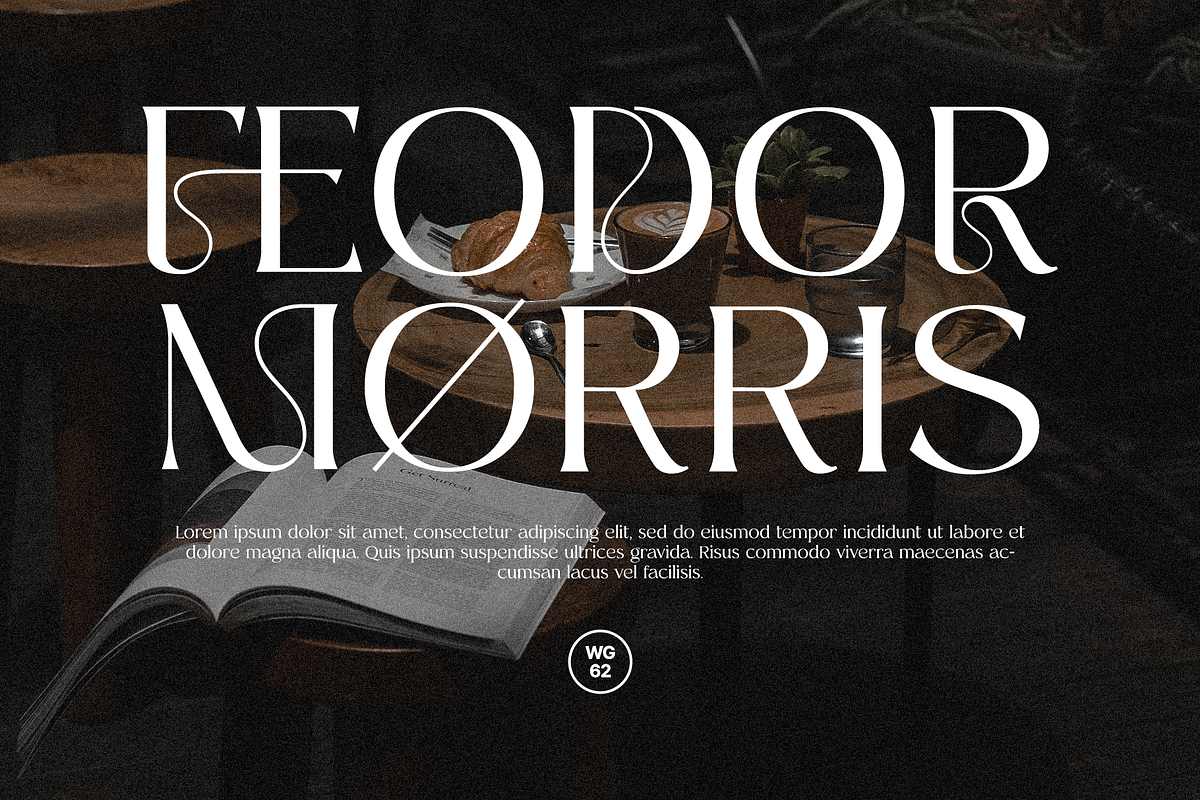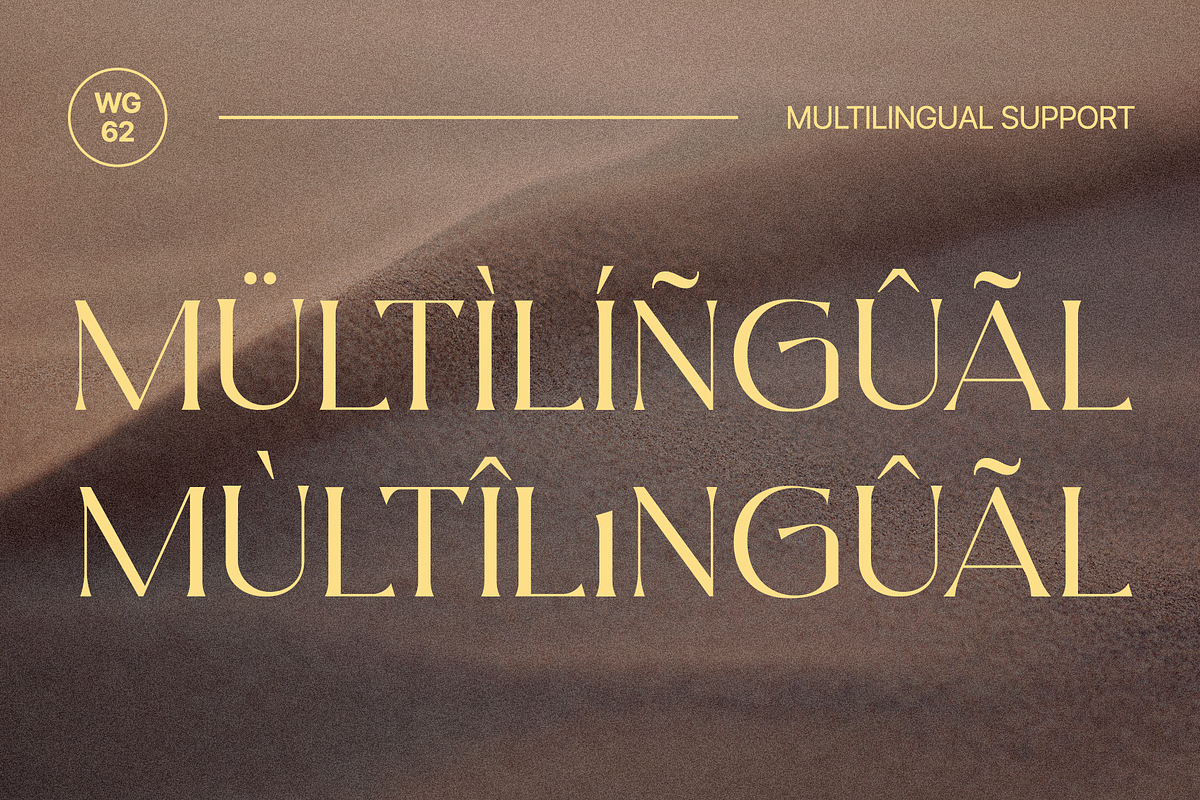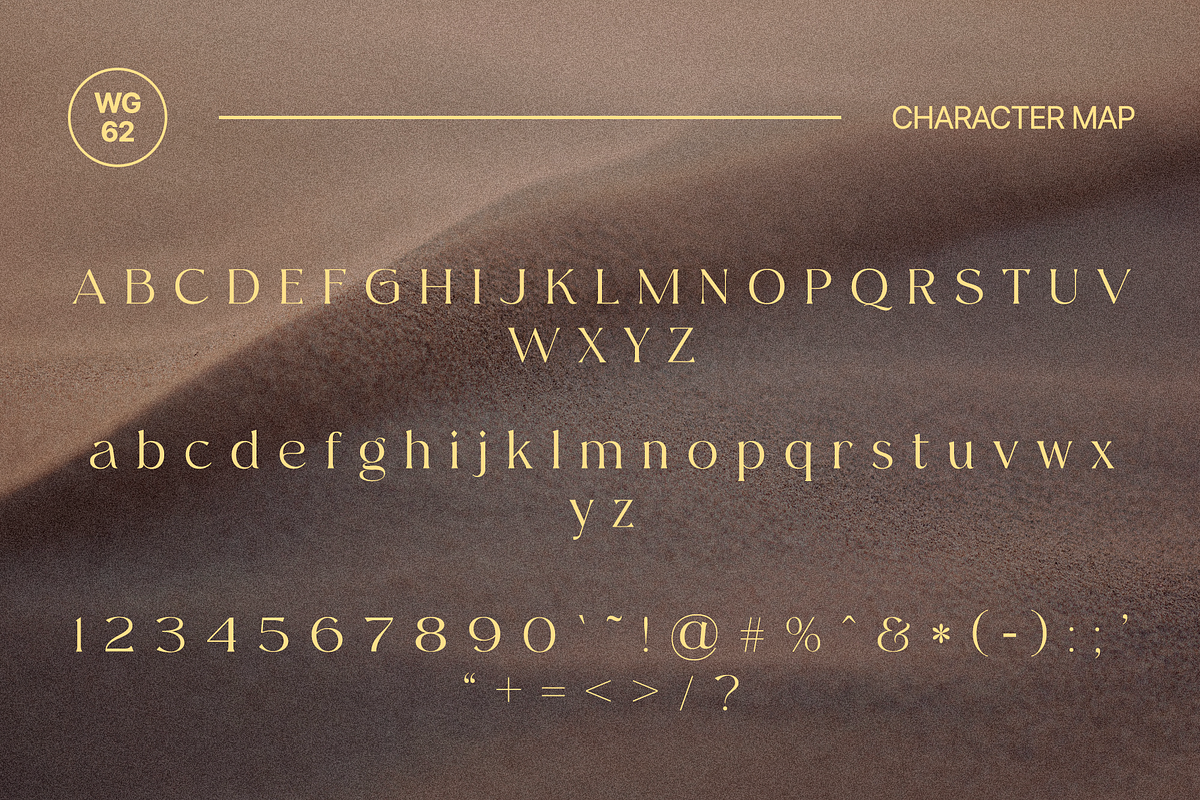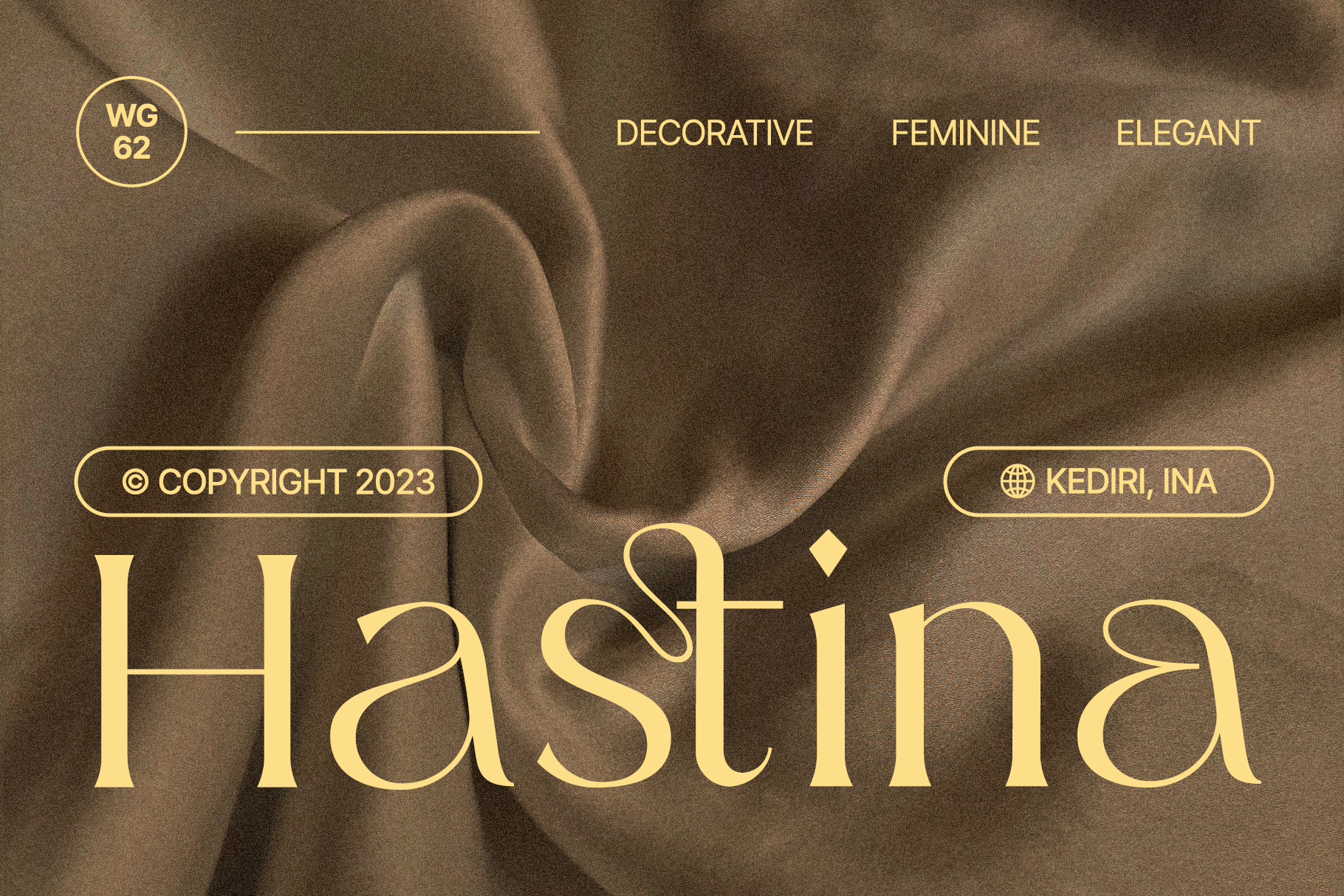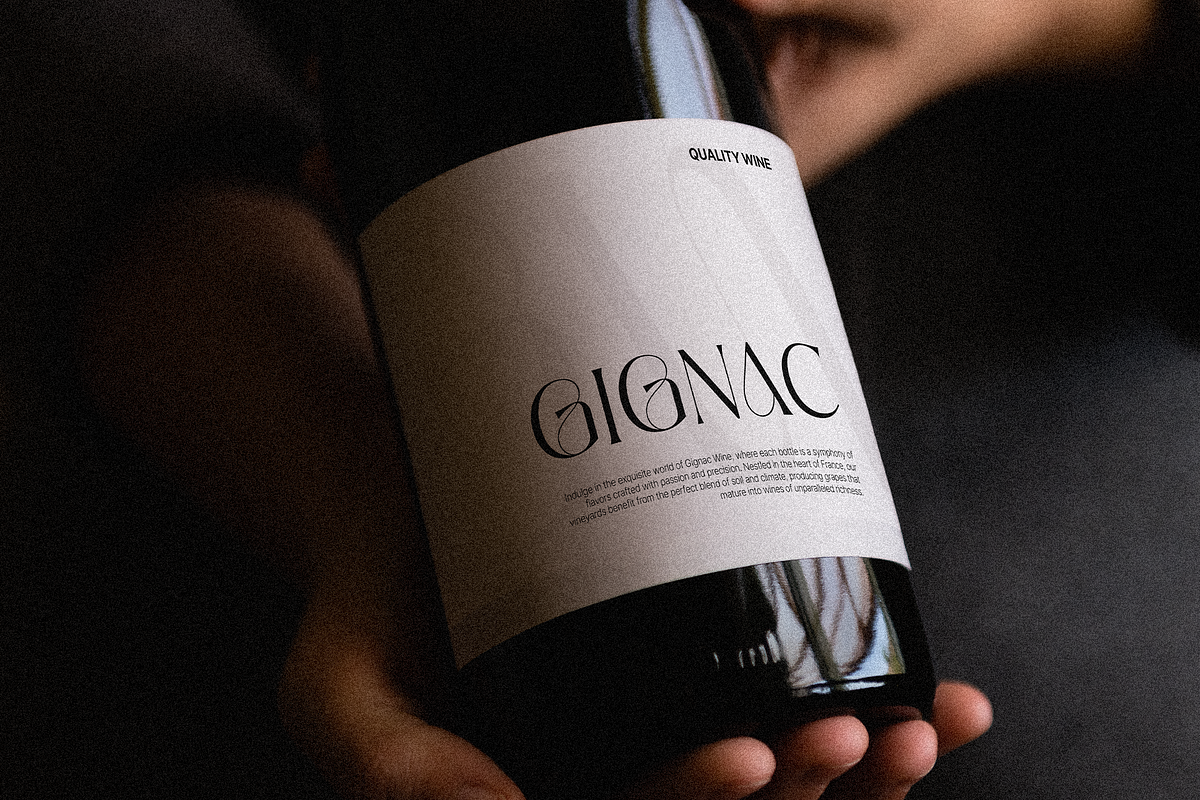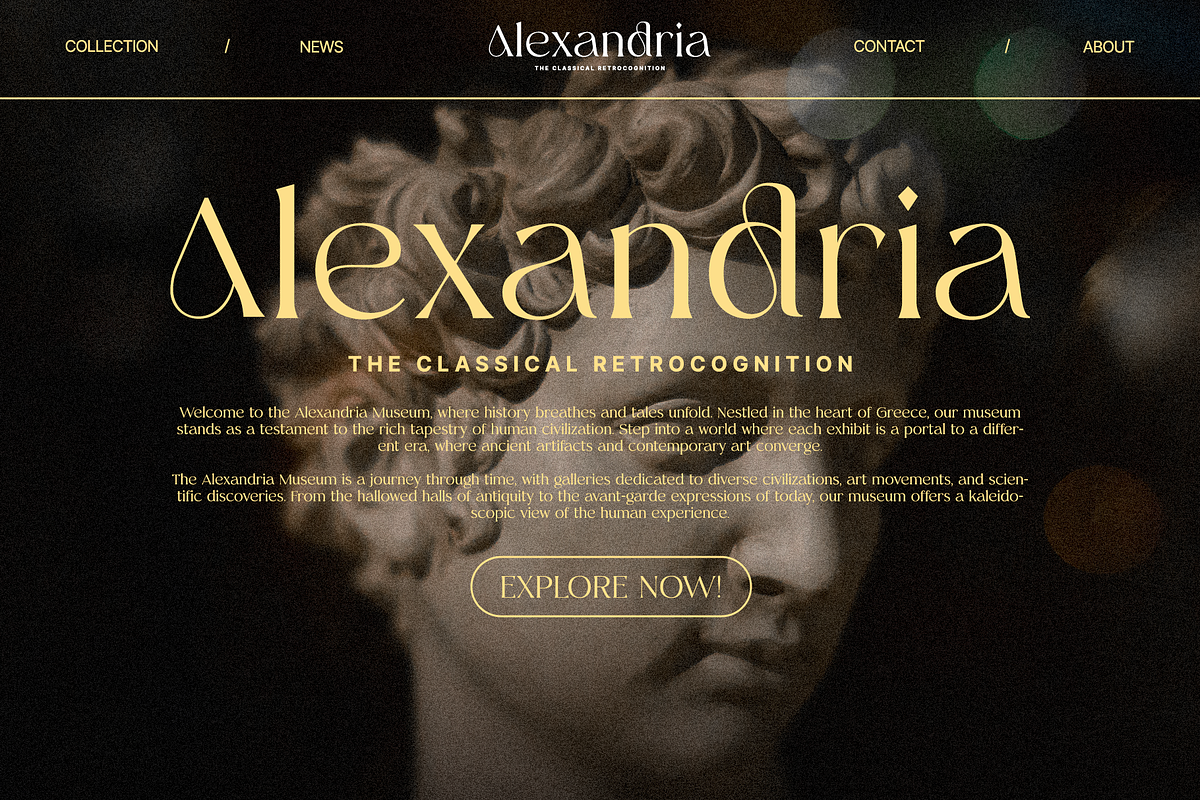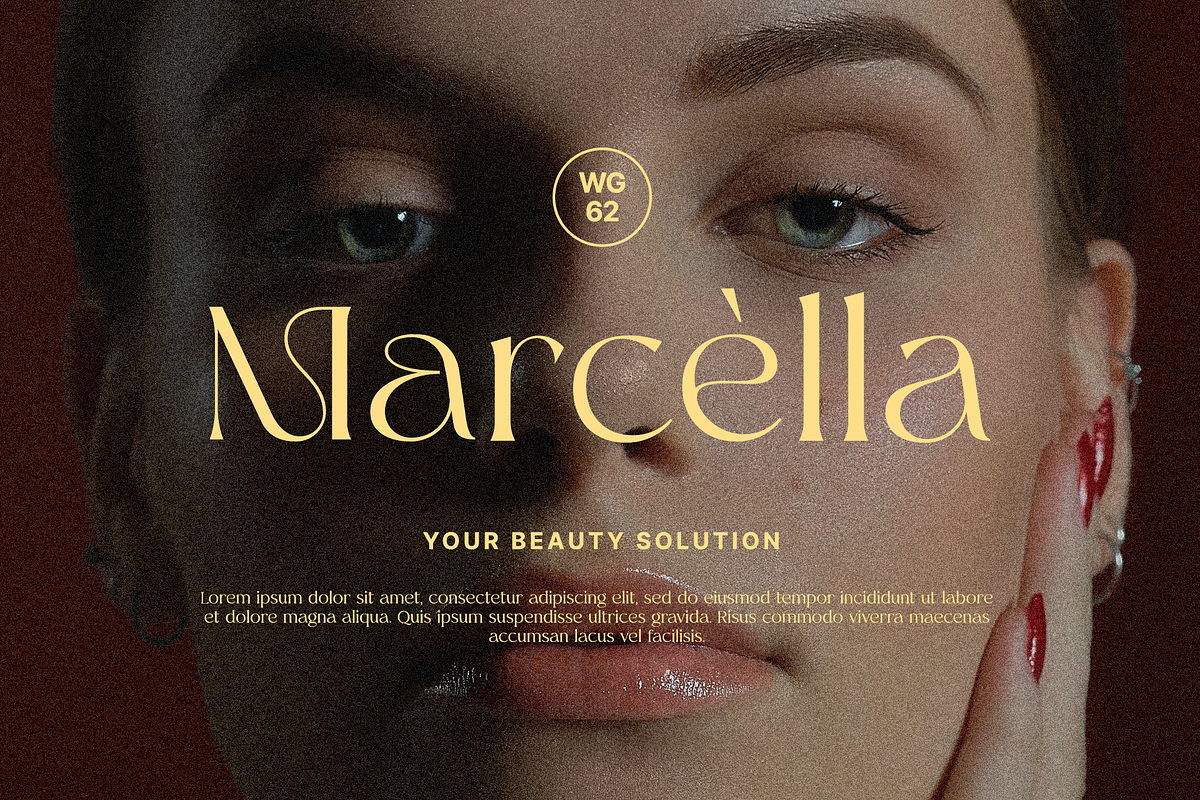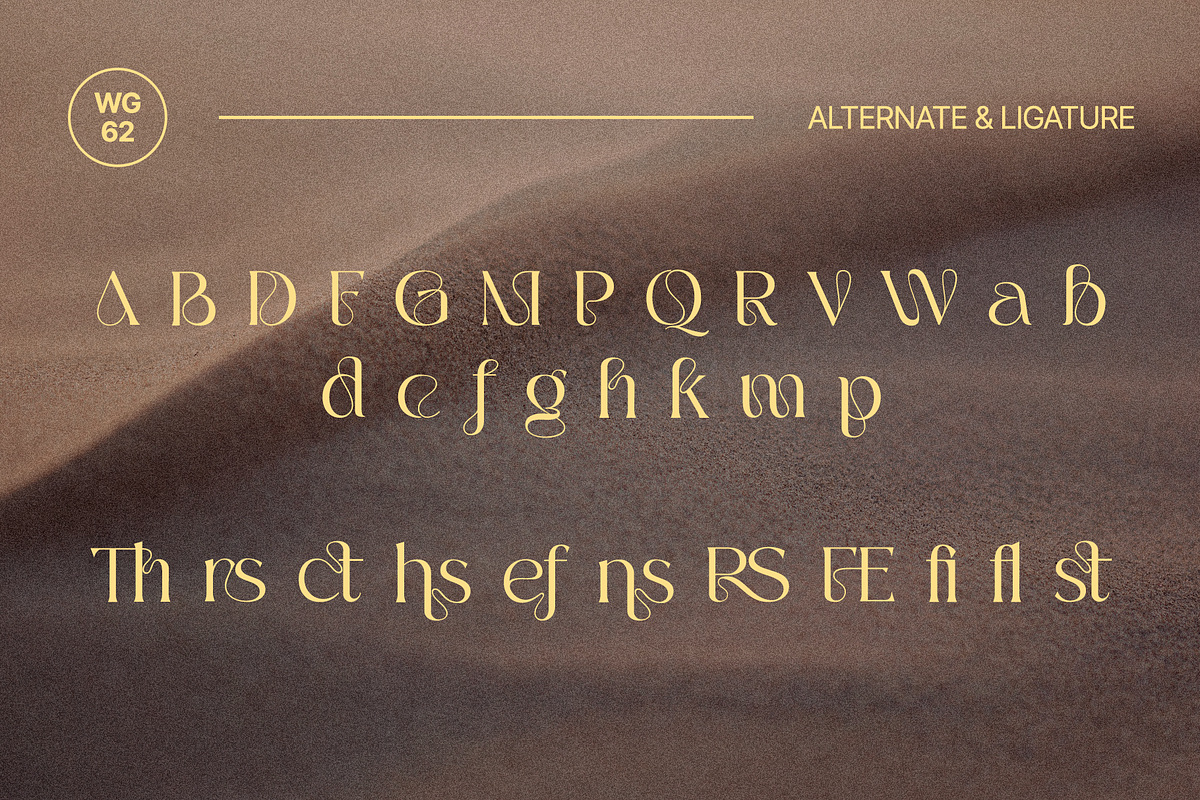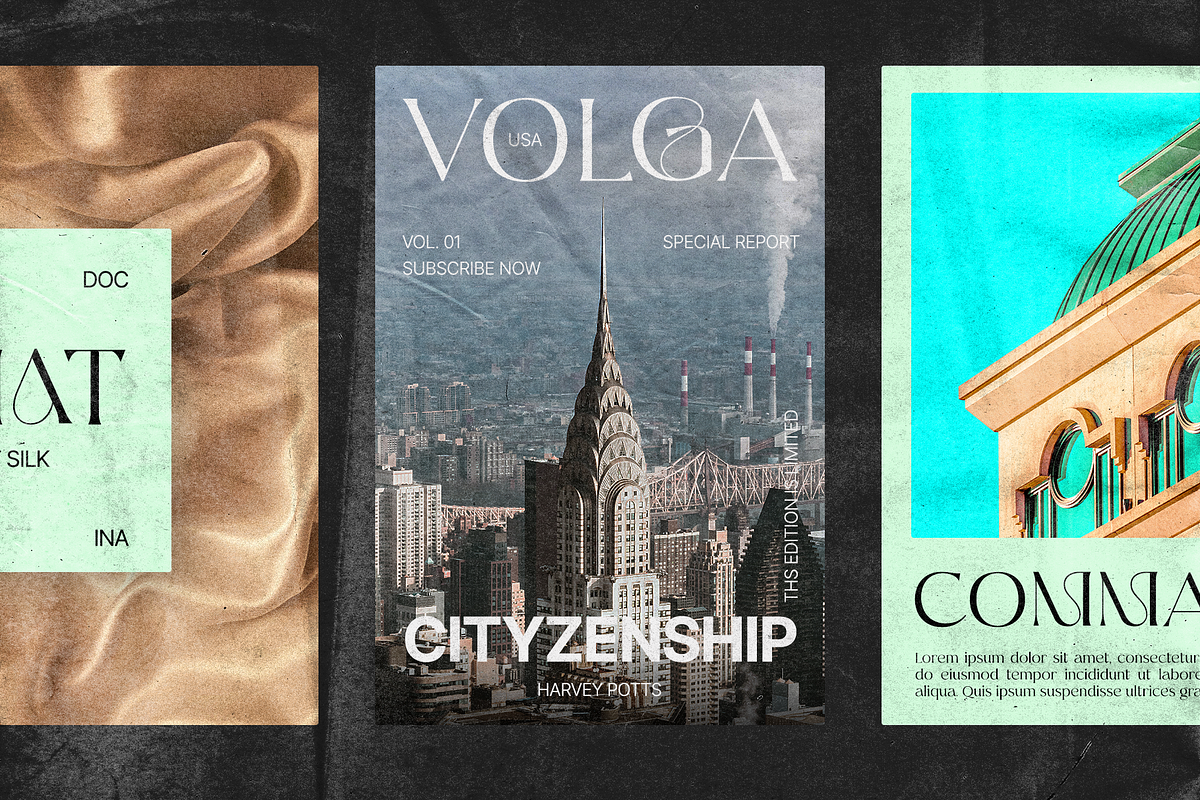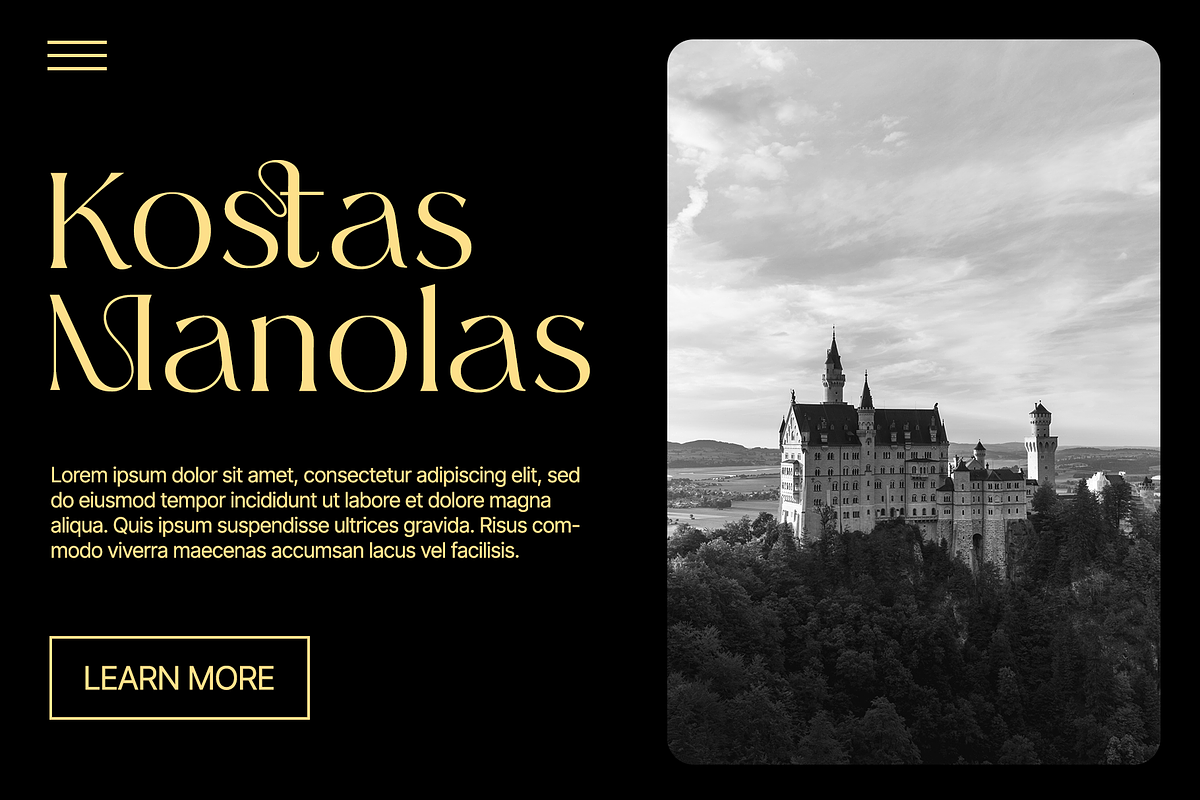
Hastina - Elegant Serif Font
Hastina is a beautiful handwritten font with a flowing and elegant style. It features a varying baseline, smooth lines, and stunning alternates. Hastina is perfect for creating a personal and inviting touch to your designs, such as wedding invitations, thank you cards, quotes, greeting cards, logos, business cards, and more.
Here are some of the key features of the Hastina font:
- Handwritten style with a flowing and elegant look
- Varying baseline
- Smooth lines
- Stunning alternates
- Versatile and can be used for a variety of purposes
Hastina is a great choice for:
- Wedding invitations
- Thank you cards
- Quotes
- Greeting cards
- Logos
- Business cards
- Other designs that need a handwritten touch
Overall, Hastina is a beautiful and versatile handwritten font that is perfect for creating a personal and inviting touch to your designs.